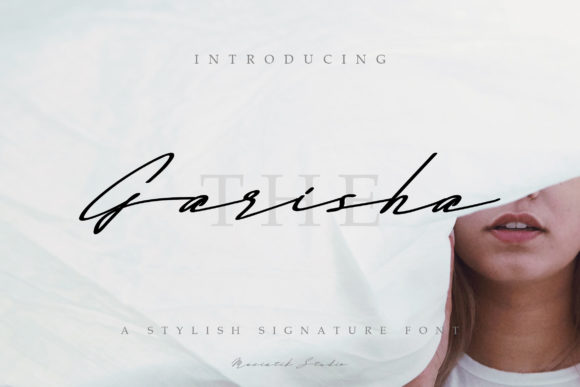
Meet The Garisha Font, a captivating script that dances across your designs with a touch of flair and elegance! Crafted by the skilled hands of mesintikstudio, this signature font is a masterpiece waiting to be unleashed on your creative projects. Its graceful curves and distinctive characters create an inimitable charm that will leave a lasting impression.
With The Garisha Font at your disposal, you'll find endless opportunities to make your words dance and your designs shine. From enchanting invitations and chic logos to captivating social media posts and mesmerizing branding, The Garisha Font is your key to crafting a visual symphony that speaks volumes. It's like having a magic wand that transforms ordinary words into extraordinary expressions of art.
Unleash your imagination and let The Garisha Font ignite your creativity. Its versatility knows no bounds, making it the perfect companion for a wide range of projects. Whether you're designing a stunning website that demands attention or creating heartfelt greetings that touch the soul, The Garisha Font has the power to elevate your words and captivate your audience.
Embrace the beauty of The Garisha Font and watch as your designs flourish with newfound elegance. Its elegant style is like a breath of fresh air, inspiring you to create designs that resonate with grace and sophistication. Explore the endless possibilities that await you with The Garisha Font and unlock a world of visual enchantment.
So, seize this opportunity to make your designs shine brighter than ever before. Let The Garisha Font guide you on a journey of creativity, where your words become art and your designs become masterpieces. Dive into the world of The Garisha Font and prepare to be amazed!